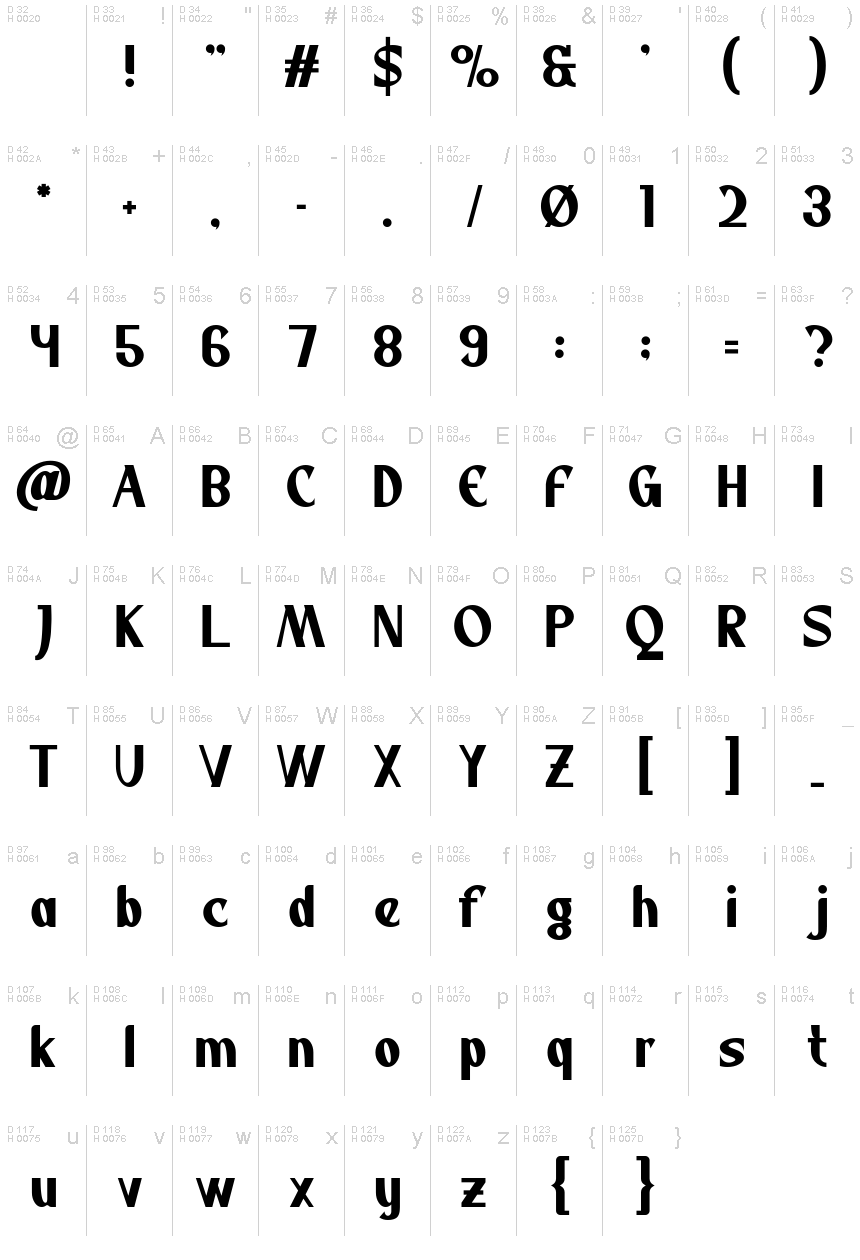
Dotta
Dotta font is a Display Bold Condensed font designed by Gilang Ternadho. A modern geometric serif with playful rounded shapes and a robust character set. Contrasting between thick and thin lines with minimalistic serifs gives it characteristics that are stylish for all modern projects, from advertising to editorial and package design.
The charmingly bold design has been used everywhere from packaging to advertising campaigns, while its accessibility makes it great for posters, album covers, t-shirts. It's also ideal for social media graphics, branding projects (including cottages), website headers (taglines) especially travel-related ones; maybe because of how fun these letters look up close on postcards too!